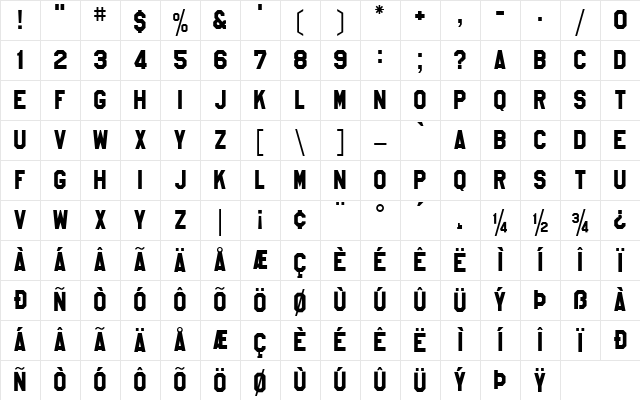
High School USA Sans Regular Free Font
High School USA Sans Regular
Design Context for High School USA Sans
High School USA Sans is a composed and adaptable typeface that performs quietly and consistently across a wide range of design contexts.